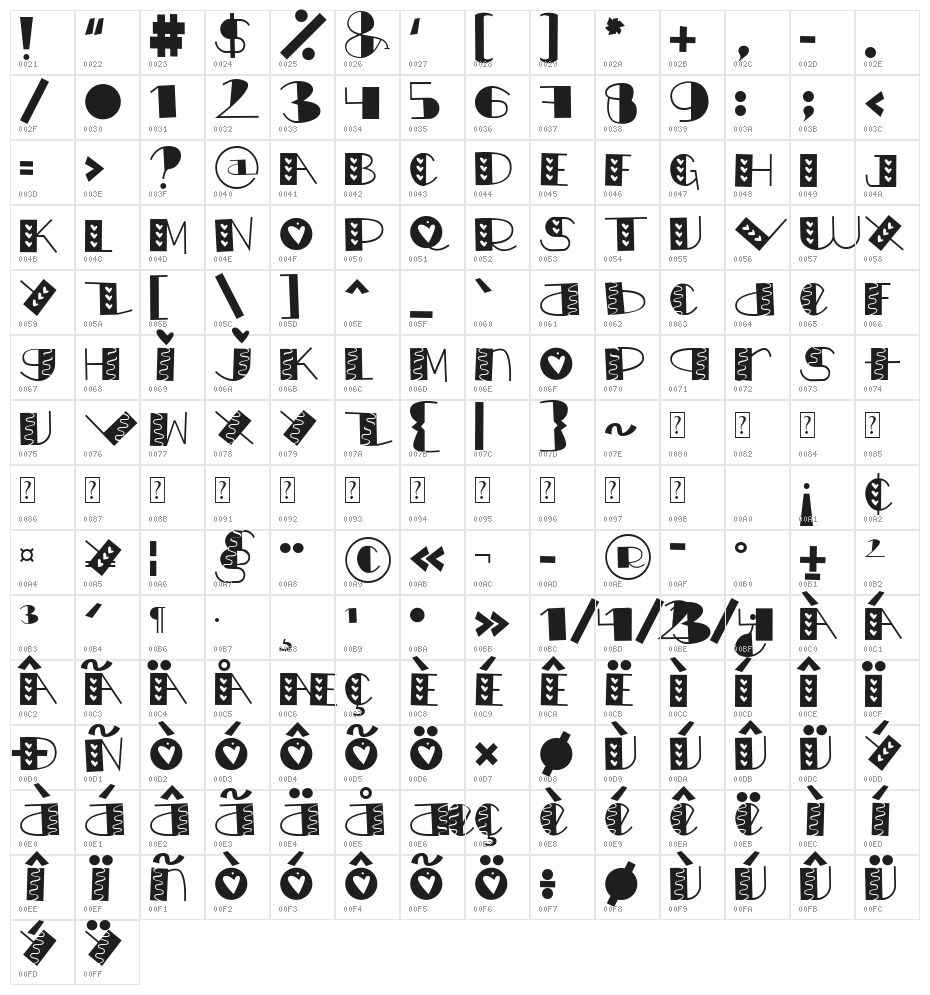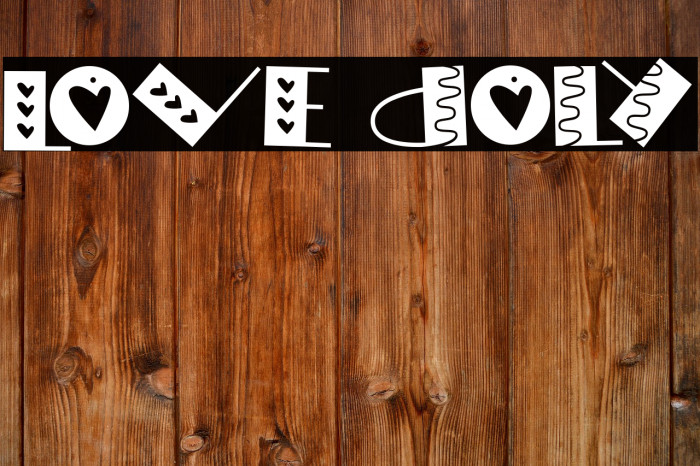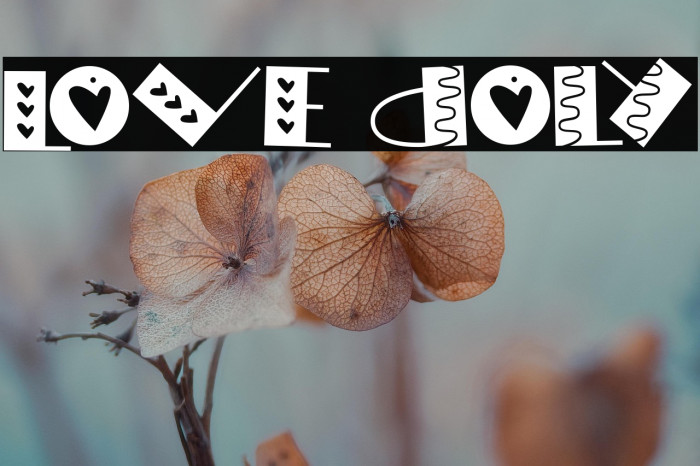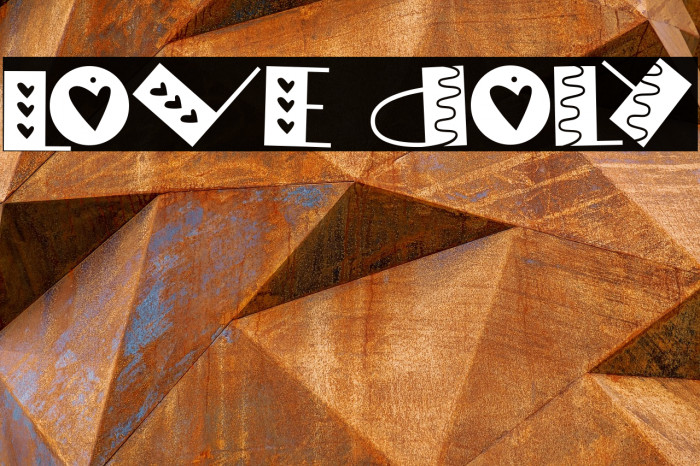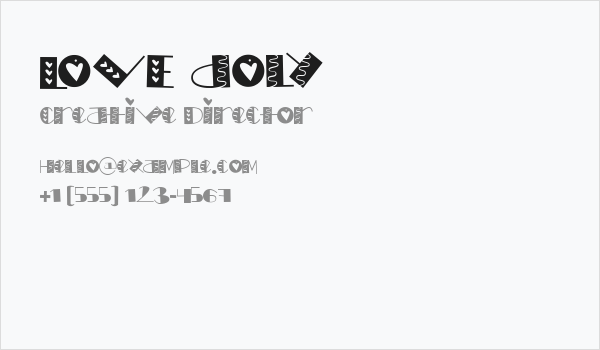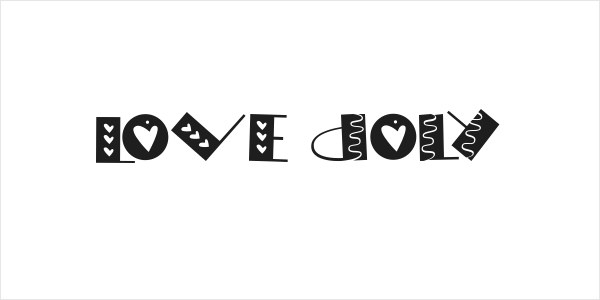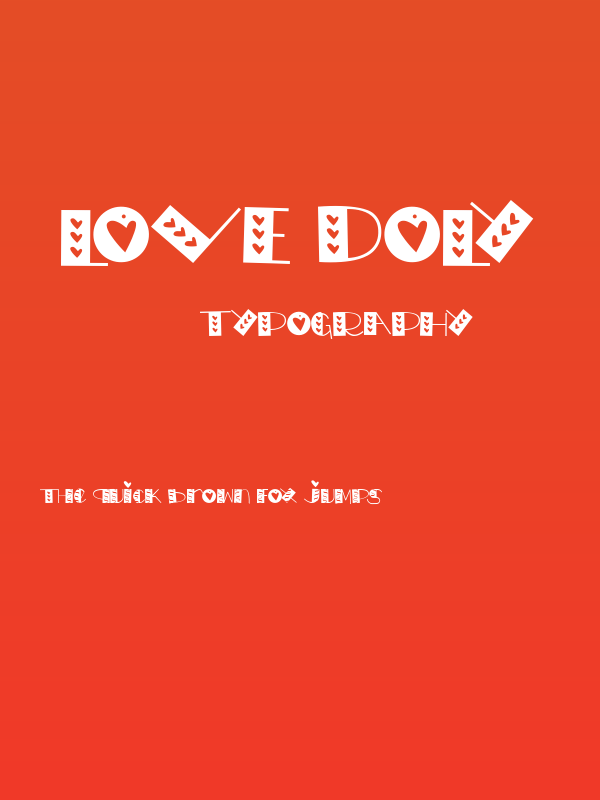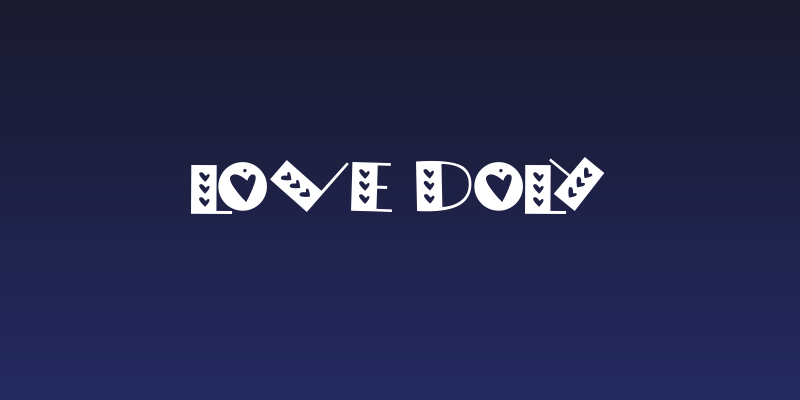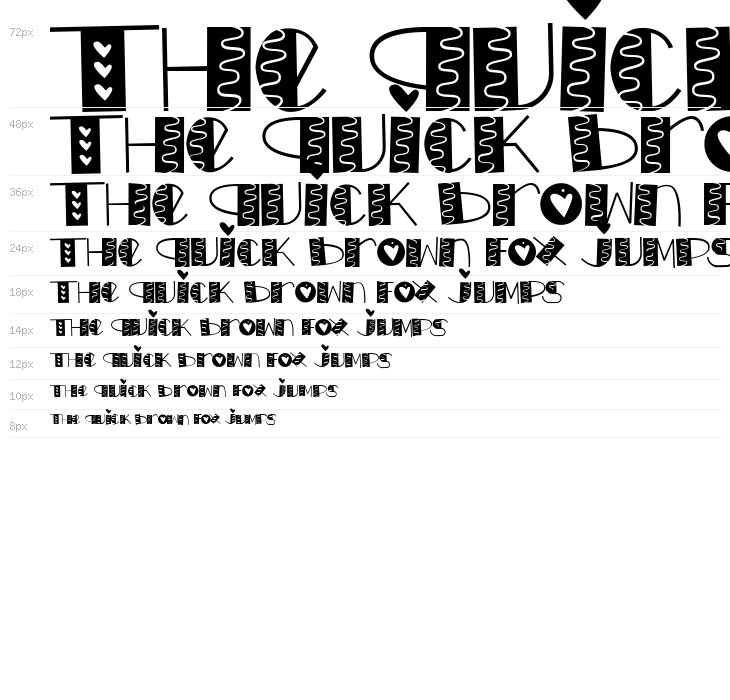
LOVE doly Font
LOVE doly Description
This playful and decorative font features bold, whimsical characters with heart motifs embedded within the strokes. The uppercase letters are characterized by a mix of solid and patterned fills, creating a lively and engaging appearance. The lowercase letters maintain a similar style, with some characters incorporating unique embellishments like hearts and zigzag patterns. The numerals are bold and rounded, complementing the overall playful aesthetic. Special characters are designed with the same decorative flair, making this font ideal for projects that require a fun and eye-catching typeface.
| Overall Style | Playful, Decorative |
| Proposed Projects | Ideal for Valentine's Day cards, children's book covers, playful branding, and festive invitations. |